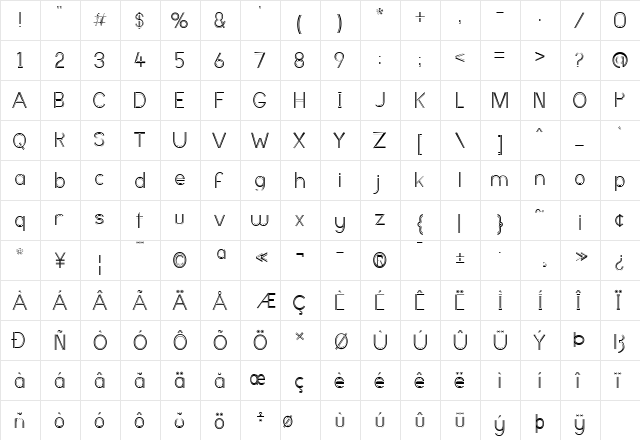
Ericott Regular
Design Context for Ericott Typeface
Ericott offers clean, dependable letterforms without strong stylistic allegiance, making it a practical choice for designers who need flexibility.